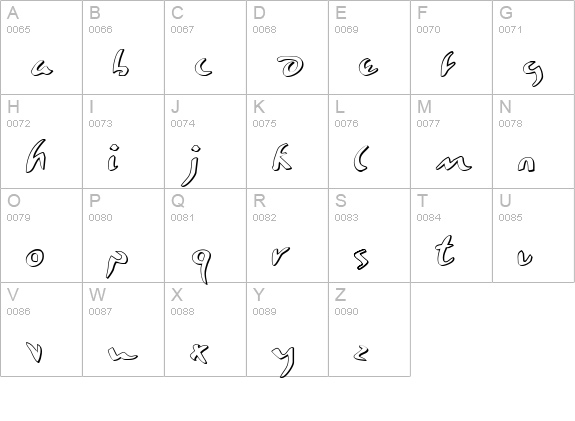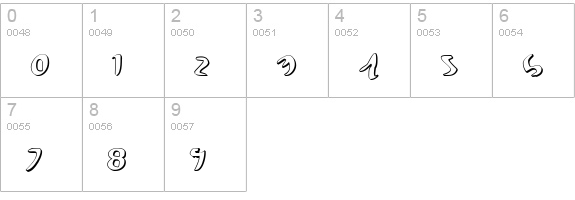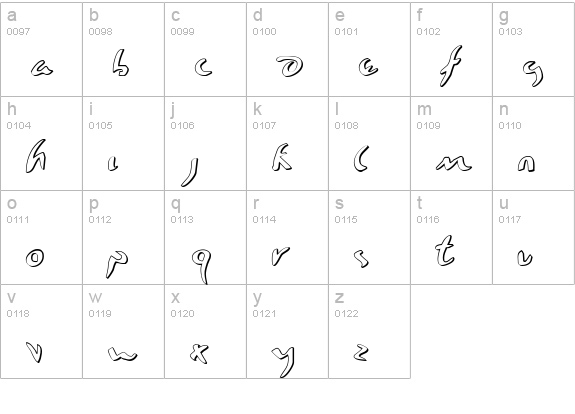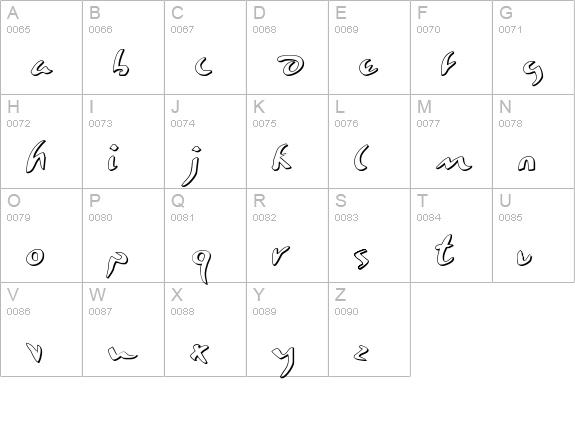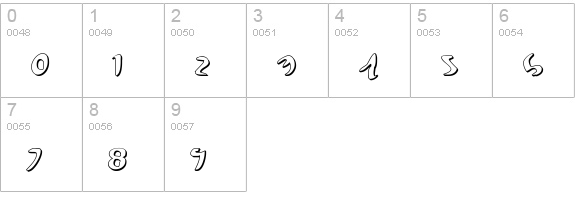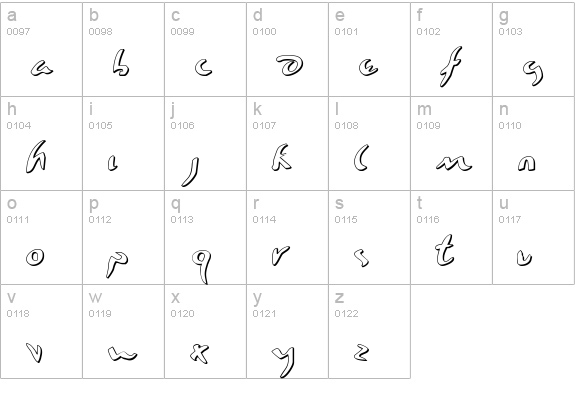
Eagleclaw 3D font is a bold and dynamic typeface that exudes strength and power. Its sharp angles and three-dimensional effect make it stand out in any design project, adding a touch of modernity and sophistication. This font is perfect for titles, headings, and logos that need to make a bold statement. The best part? Eagleclaw 3D font is completely free to download at FontsMarket.com. Whether you're a designer looking to add a unique touch to your work or a business owner in need of a strong visual identity, this font is sure to impress. Don't miss out on this opportunity to elevate your designs with the striking Eagleclaw 3D font - get it now for free at FontsMarket.com!